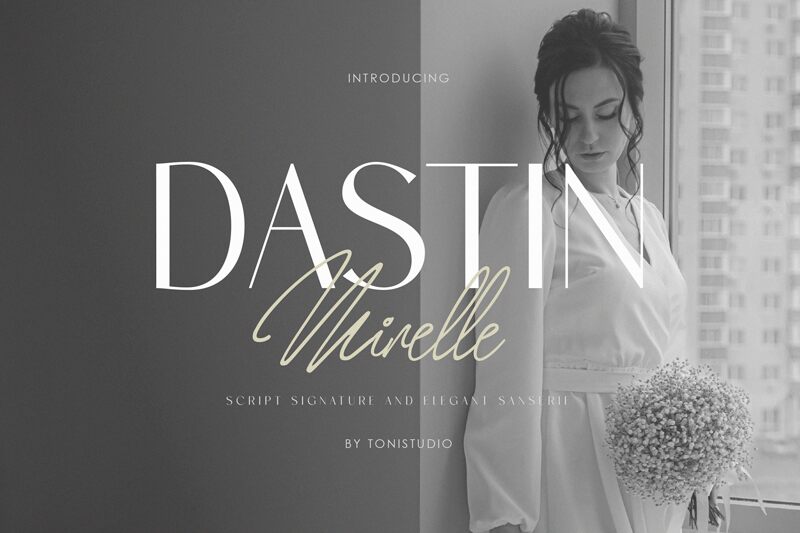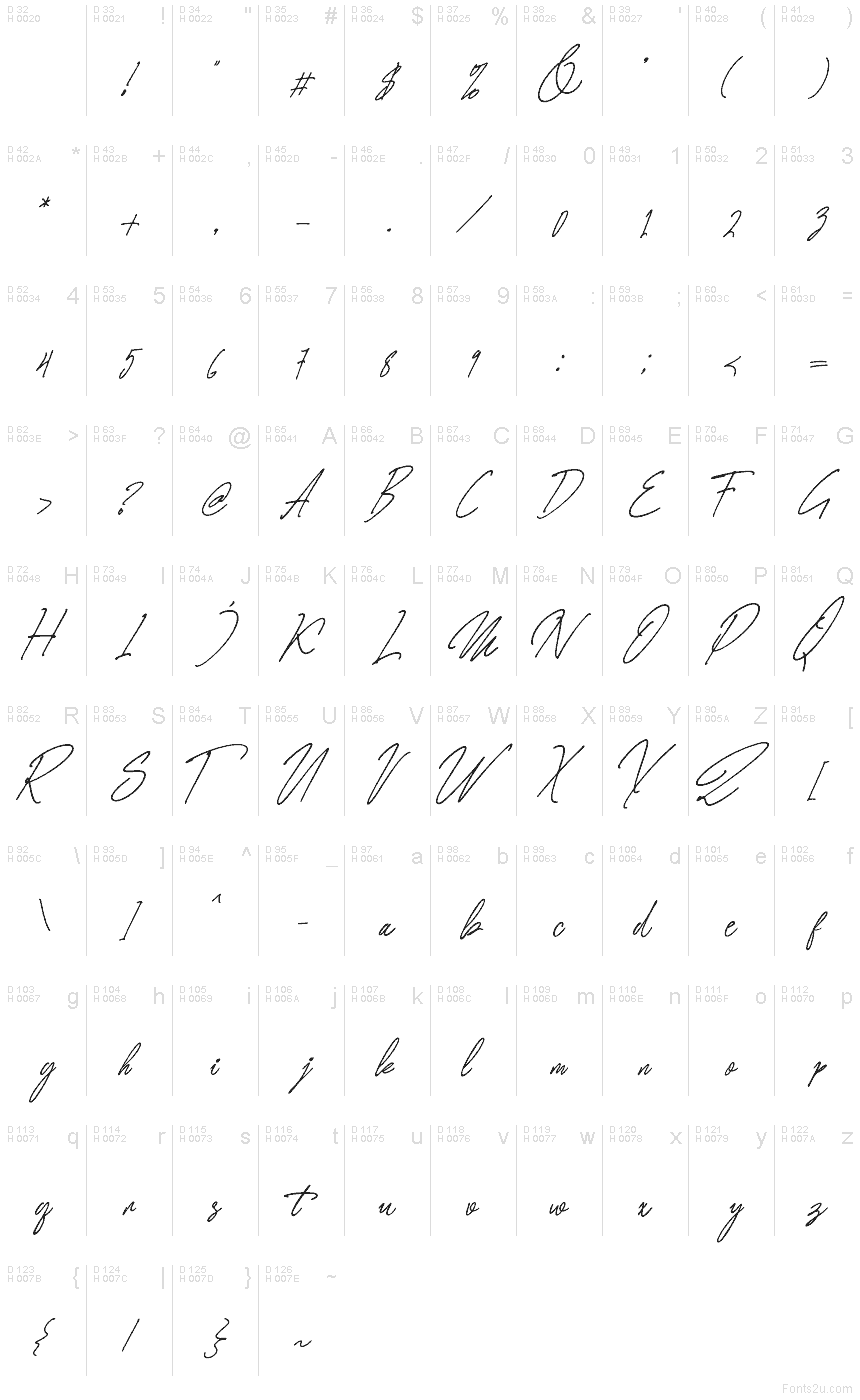
Mirelle Script Script
Mirelle Script font by ToniStudio is a free handwritten font in light weight and with a condensed width. The elegant flowing signature-like letters give away a vibe of modernity while their expressive shapes create an overall visual sophistication.
Enjoy this font in designing wedding cards, wine labels, photo captions, Instagram posts, book covers, business cards for the fashion industry, TV promos and advertisements.